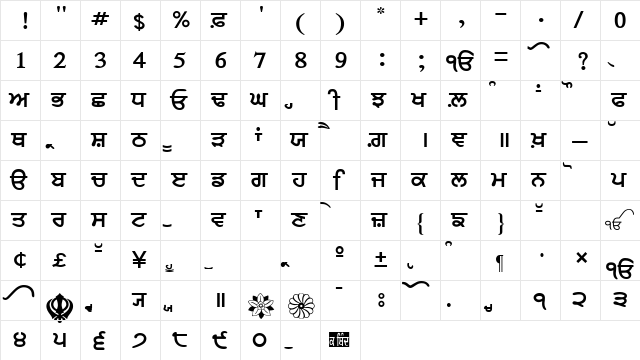
AnmolLipiThick Regular
Design Context for AnmolLipiThick Typeface
AnmolLipiThick takes a measured approach to typography — its balanced proportions and neutral character make it a reliable workhorse for both digital and print work.